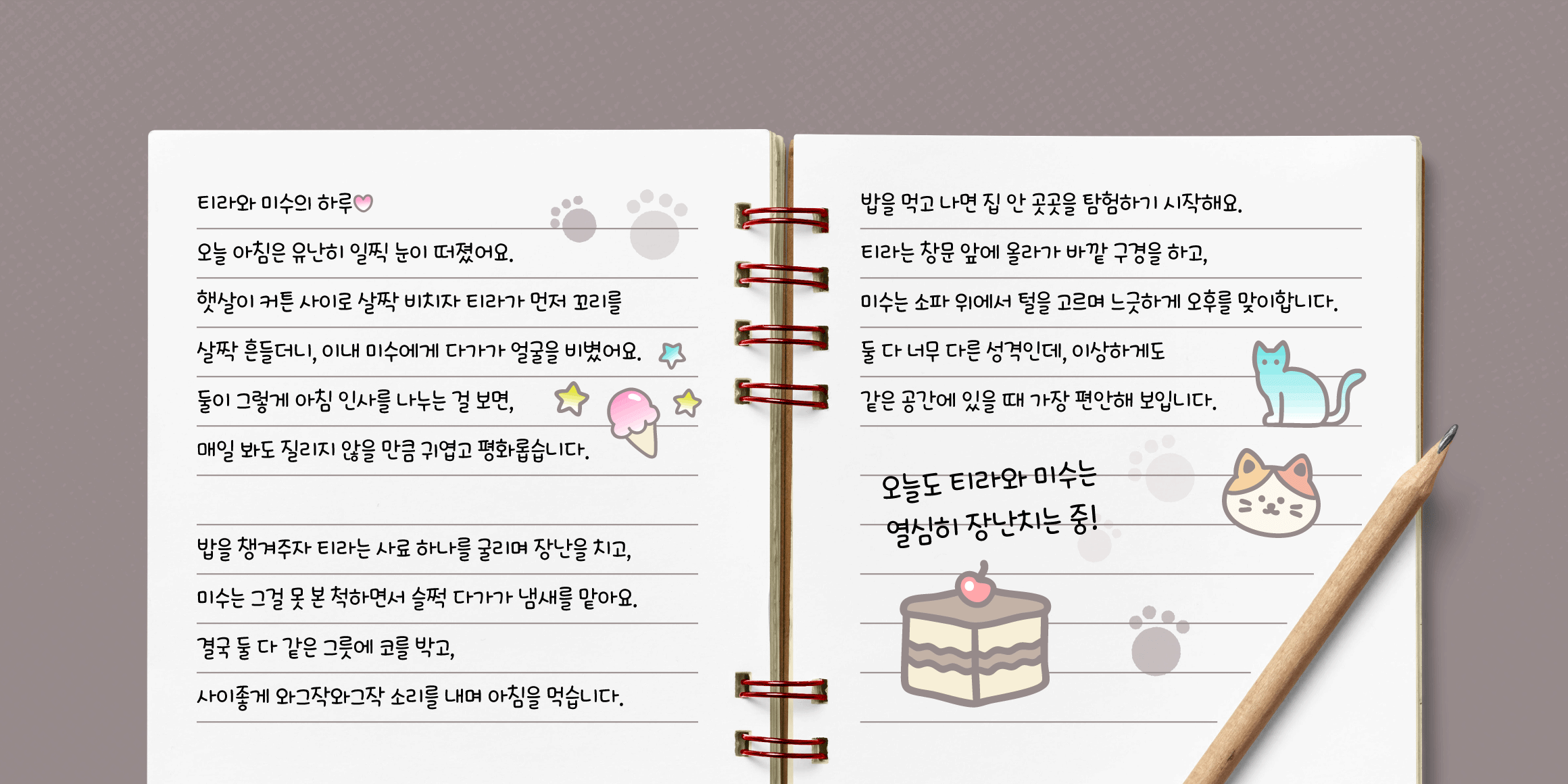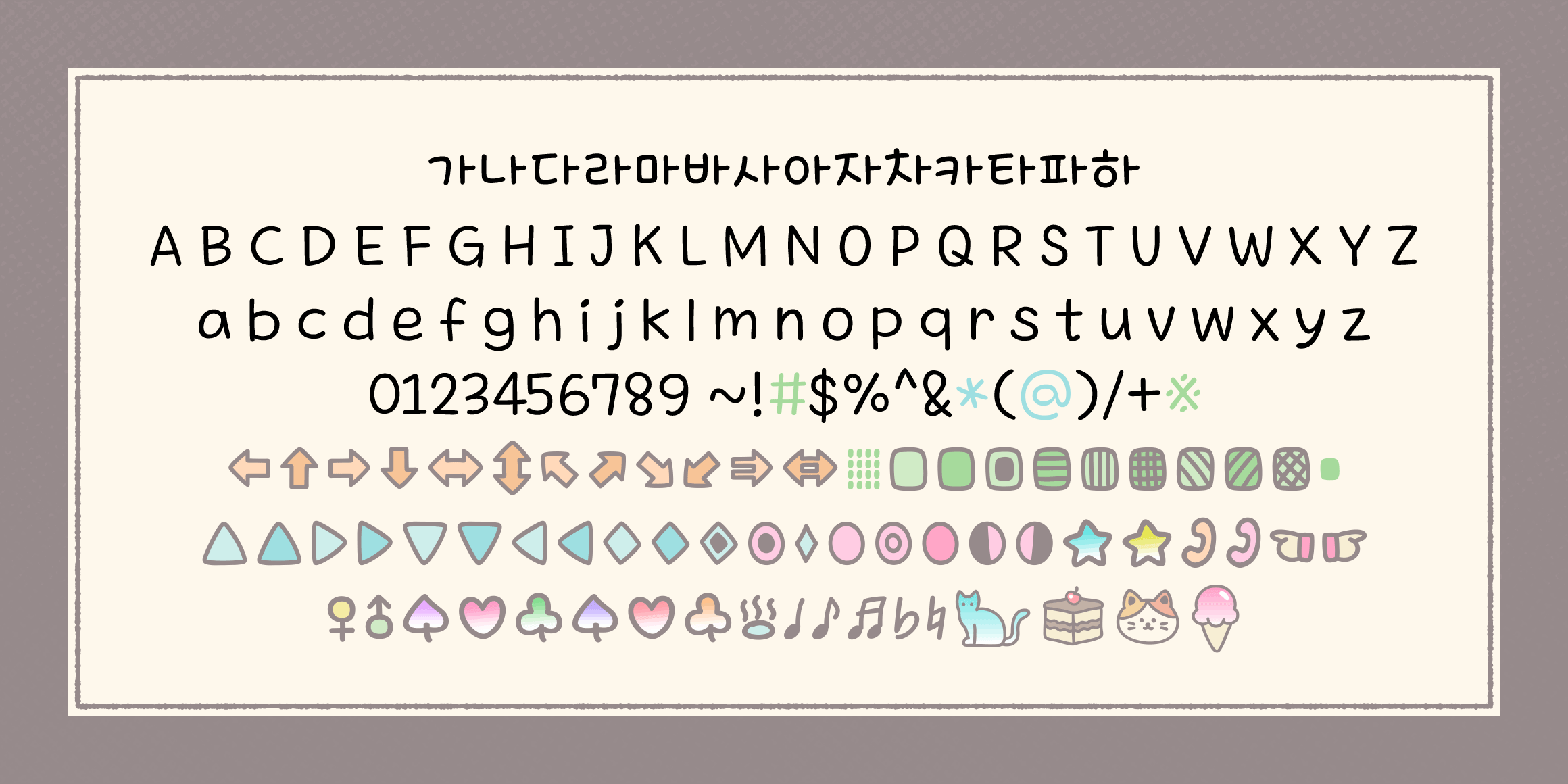
Tirah and Misoo is a font that captures the warmth and affection of two cats’ everyday lives. Consonants with many curves are designed in soft, rounded shapes, creating a cozy and friendly handwritten feel through the natural spacing between strokes and letters. Just as Tirah and Misoo freely roam around the house, each character carries a gentle rhythm and a sense of lively motion. The smooth curves and flowing lines evoke the graceful movements of a cat.
- If you type ;), ;>, :!: and :?: the note on stars will appear!
- Support colorful dingbat in#*@※←↑→↓↔↕↖↗↘↙⇒⇔▒■□▣▤▥▦▧▨▩▲△▶▷▼▽◀◁◆◇◈◉◊○◎●◐◑★☆☎☏☜☞♀♂♠♡♣♤♥♧♨♩♪♬♭♮.
- In environments that do not support color dingbats, they will be displayed in black and white.